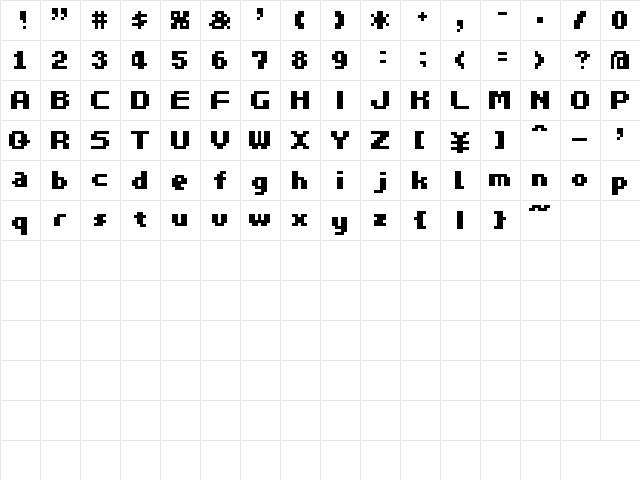
MW PITHY 8point
Design Context for MW PITHY Typeface
MW PITHY takes a measured approach to typography — its balanced proportions and neutral character make it a reliable workhorse for both digital and print work.
Pro Tip: Pair MW PITHY with a font of contrasting weight or personality to build a more expressive typographic hierarchy.